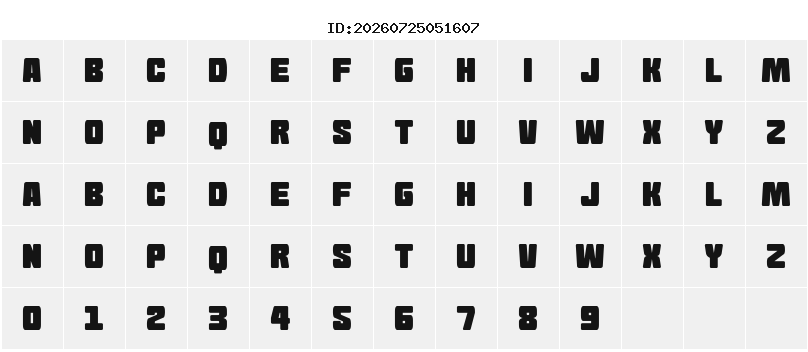
Goma Block Preview
About Goma Block.ttf
Goma Block.ttf is a modern, elegant sans-serif font designed for ultimate readability and visual harmony. Perfect for branding, headlines, web design, and print materials.